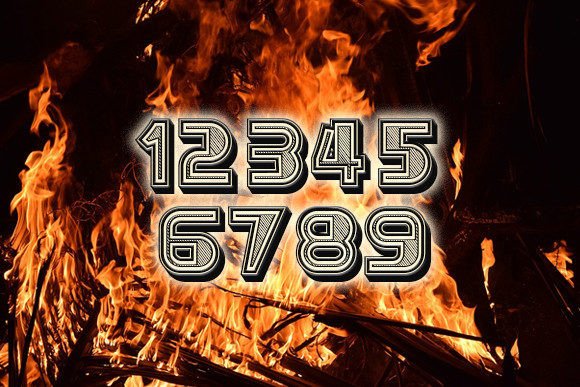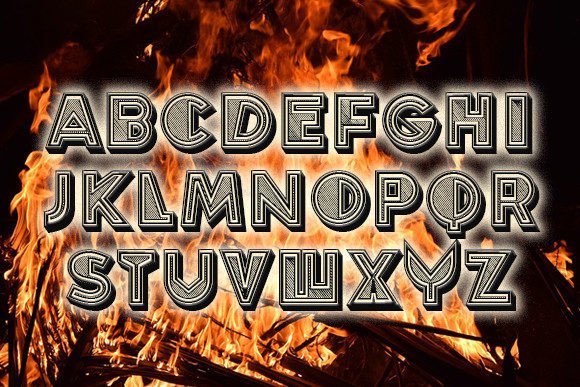
Introducing Flamez Font: The Bold and Striking Decorative Typeface
Are you a designer or crafter looking for a font that will make your projects stand out? Look no further than Flamez Font, a bold and striking decorative typeface that’s perfect for adding a touch of drama and flair to your designs. In this article, we’ll take a closer look at Flamez Font, its features, and how you can use it to take your designs to the next level.
What is Flamez Font?
Flamez Font is a decorative typeface that’s designed to make a statement. With its bold and striking appearance, this font is perfect for designs that need to grab attention. Whether you’re working on a t-shirt, poster, flyer, or any other project, Flamez Font is sure to make it look stunning.
Key Features of Flamez Font
So, what makes Flamez Font so special? Here are some of its key features:
• Bold and striking appearance: Flamez Font is designed to be eye-catching, with thick lines and a confident presence that demands attention.
• Decorative style: This font features intricate details and ornate flourishes that give it a unique and decorative style.
• Versatile: Flamez Font can be used for a wide range of projects, from t-shirts and posters to flyers and more.
• Easy to read: Despite its bold and decorative style, Flamez Font is still easy to read, making it perfect for headlines and titles.
How to Use Flamez Font
Now that we’ve covered the features of Flamez Font, let’s talk about how to use it. Here are some ideas to get you started:
• T-shirts: Flamez Font is perfect for designing bold and eye-catching t-shirts. Use it to create striking headlines or phrases that will make your designs stand out.
• Posters: Whether you’re designing a poster for a concert, event, or exhibition, Flamez Font is sure to make it look stunning.
• Flyers: Flyers are a great way to promote a business or event, and Flamez Font can help you create eye-catching headlines that will grab attention.
• Social media graphics: Flamez Font can also be used to create striking social media graphics, such as Facebook posts, Instagram stories, and more.
Tips for Using Flamez Font
Here are some tips to keep in mind when using Flamez Font:
• Use it sparingly: While Flamez Font is bold and striking, it can also be overwhelming if used too much. Use it sparingly to create emphasis and draw attention to specific parts of your design.
• Pair it with other fonts: Flamez Font can be paired with other fonts to create a unique and interesting contrast. Try pairing it with a clean and simple font to create a bold and eye-catching combination.
• Experiment with colors: Flamez Font looks great in bold and bright colors, but it can also be used in more subtle colors to create a different effect. Experiment with different colors to find the one that works best for your design.
In conclusion, Flamez Font is a bold and striking decorative typeface that’s perfect for designers and crafters who want to add a touch of drama and flair to their designs. With its bold and striking appearance, versatile style, and ease of use, Flamez Font is sure to become a favorite in your font collection. So why wait? Download Flamez Font today and start creating stunning designs that will grab attention and leave a lasting impression.